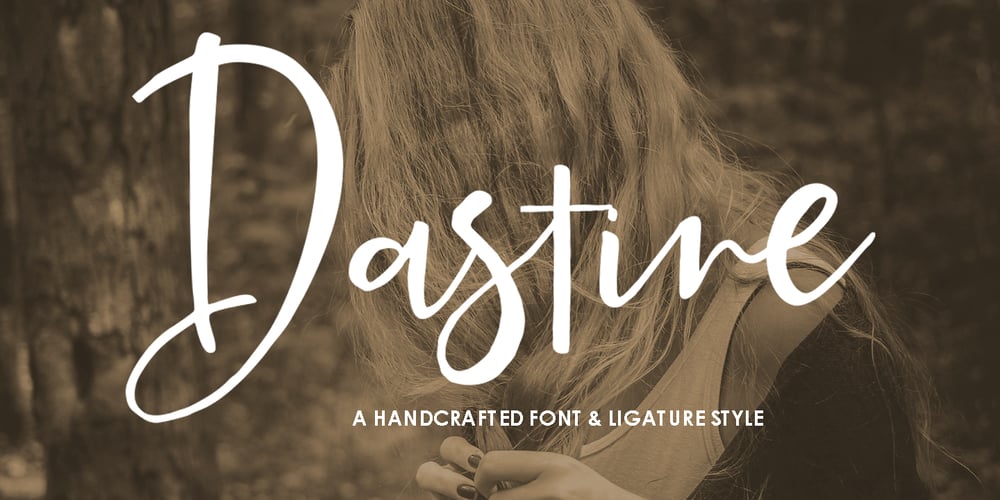
Dastine Script Font Family was designed by Naufal Paramata and published by Youngtype. Dastine Script contains 1 styles and family package options. Dastine is a hand brushed script created with a bold look and an irregular baseline. It contains a complete set of lowercase, uppercase, alternates, ligatures, punctuation, numbers, and multilingual support. Get some inspiration from the preview images. This font is ideal for use in watercolor design or lettering, blog headers, posters, wedding elements, t-shirt, apparel, book covers, business cards, greeting cards, branding, merchandise, invitations and handmade quotes and more. How to access all alternative characters, using Windows Character Map with Photoshop: https://www.youtube.com/watch?v=Go9vacoYmBw How to access all alternative characters using Adobe Illustrator: https://www.youtube.com/watch?v=XzwjMkbB-wQ Thank you!